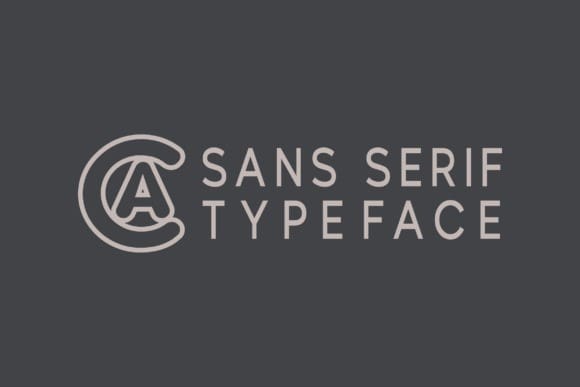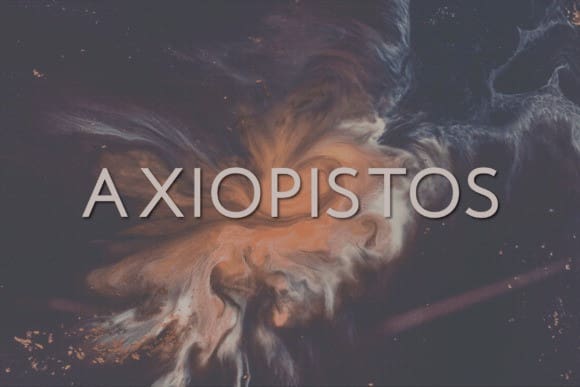
Axiopistos Font
Axiopistos Font, a contemporary sans serif typeface that seamlessly merges modernity with a touch of class. Axiopistos is not your ordinary typeface. It’s a full-bodied font jampacked with uppercase letters, numerals from 0-9, and a comprehensive array of punctuation and symbols. This font’s versatility is boundless, capable of elevating any project from ordinary to extraordinary. Whether it’s amplifying the romantic vibes of wedding invites, empowering the words of an inspirational quote, or stamping an unforgettable identity on a logo, Axiopistos effortlessly shines. It’s also an ideal companion for print materials, magazines, advertisements, and invitations, imbuing each word with a powerful aesthetic presence that captures attention and lingers in the mind.